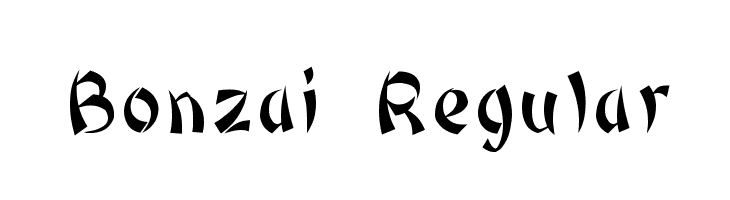
A bold, hand-drawn brush stroke font with dynamic, uneven characters.
A calligraphic font with elegant, flowing lines and moderate contrast.
A bold, expressive font with elegant swashes and decorative elements.
A playful, hand-drawn font with rounded, bold characters and a casual style.
A bold, decorative font with a shadow effect, ideal for striking designs.
A bold, graffiti-inspired font with sharp, angular lines and an energetic style.
A serif font with a unique shadow effect, offering a classic and bold appearance.
A playful, bold font with rounded, thick strokes and a whimsical style.
A bold, playful font with a hand-drawn, quirky style.
A geometric, grid-based font with a digital, pixelated style.
A bold, rounded sans-serif font with a modern and approachable style.
A bold, decorative blackletter font with intricate details and a vintage gothic style.
A bold, geometric font with sharp angles and a modern, industrial feel.
A modern, clean font with excellent readability and balanced design.
A bold, expressive font featuring intricate pictorial symbols with artistic flair.
A classic monospaced typeface with a clean, uniform appearance.
A bold, 3D font with a striped pattern and shadow effect, perfect for striking designs.
A bold, cursive font with a playful and dynamic style.
A modern, geometric font with angular and structured letterforms.
A modern, geometric font with a clean and structured appearance.
A classic serif font with elegant serifs and moderate contrast, offering a timeless and sophisticated look.
A geometric, Art Deco-inspired font with bold, clean lines and symmetrical shapes.
A bold, geometric font with sharp angles and a futuristic aesthetic.
A modern sans-serif font with clean lines and balanced proportions.
A playful, rounded font with smooth curves and a friendly appearance.
A whimsical, hand-drawn font featuring birthday-themed illustrations.